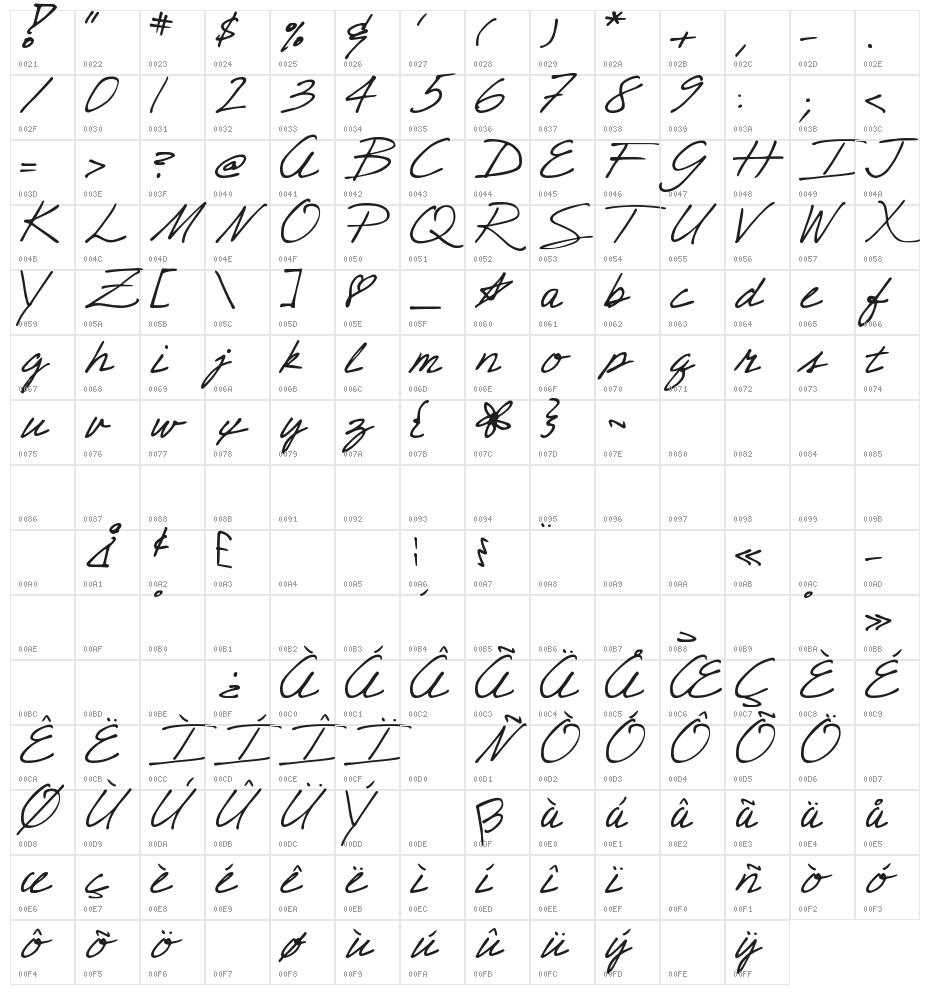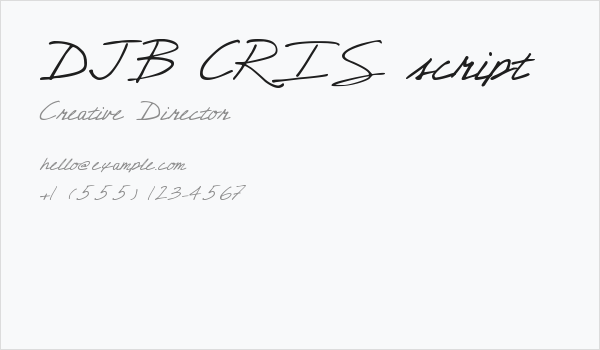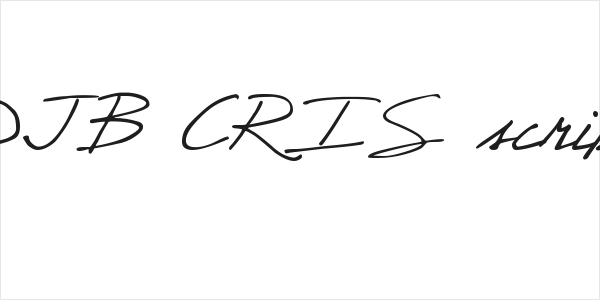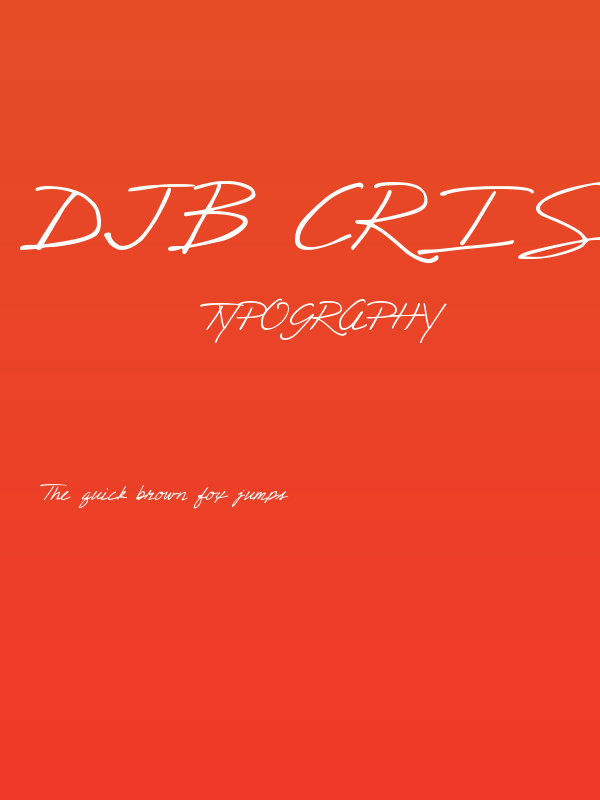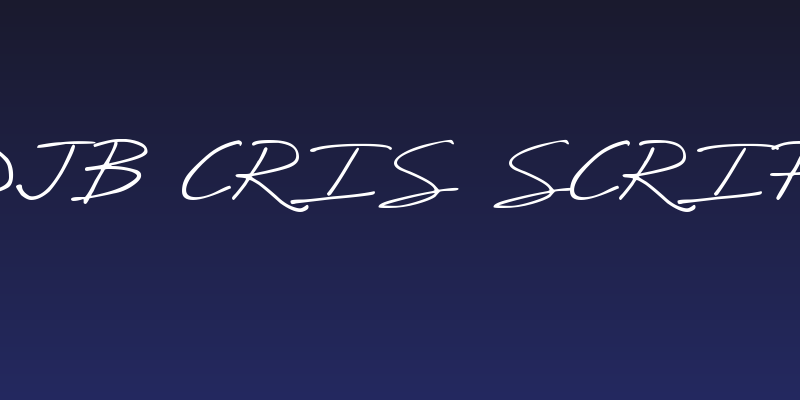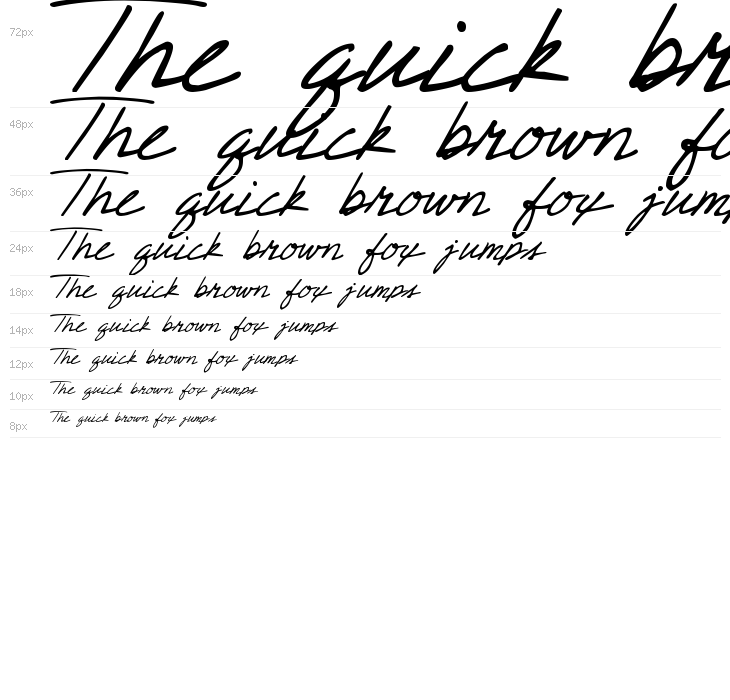
DJB CRIS script Font
DJB CRIS script Description
| Name | DJB CRIS script |
| Overall Style | Casual, Elegant |
| Use Case | Headlines, Invitations, Greeting Cards |
| Proposed Projects | Ideal for invitations, greeting cards, personal branding, and any project needing a warm, handwritten touch. |